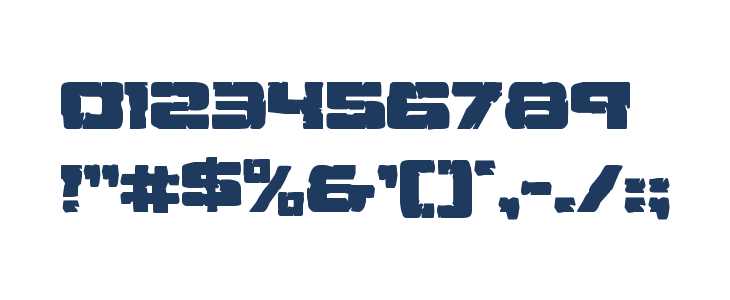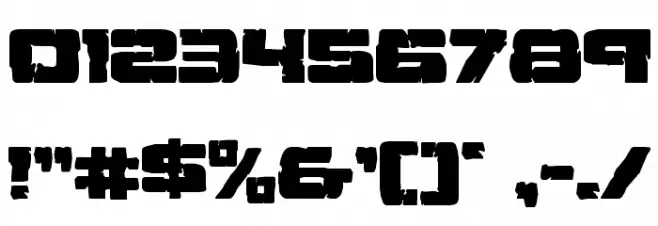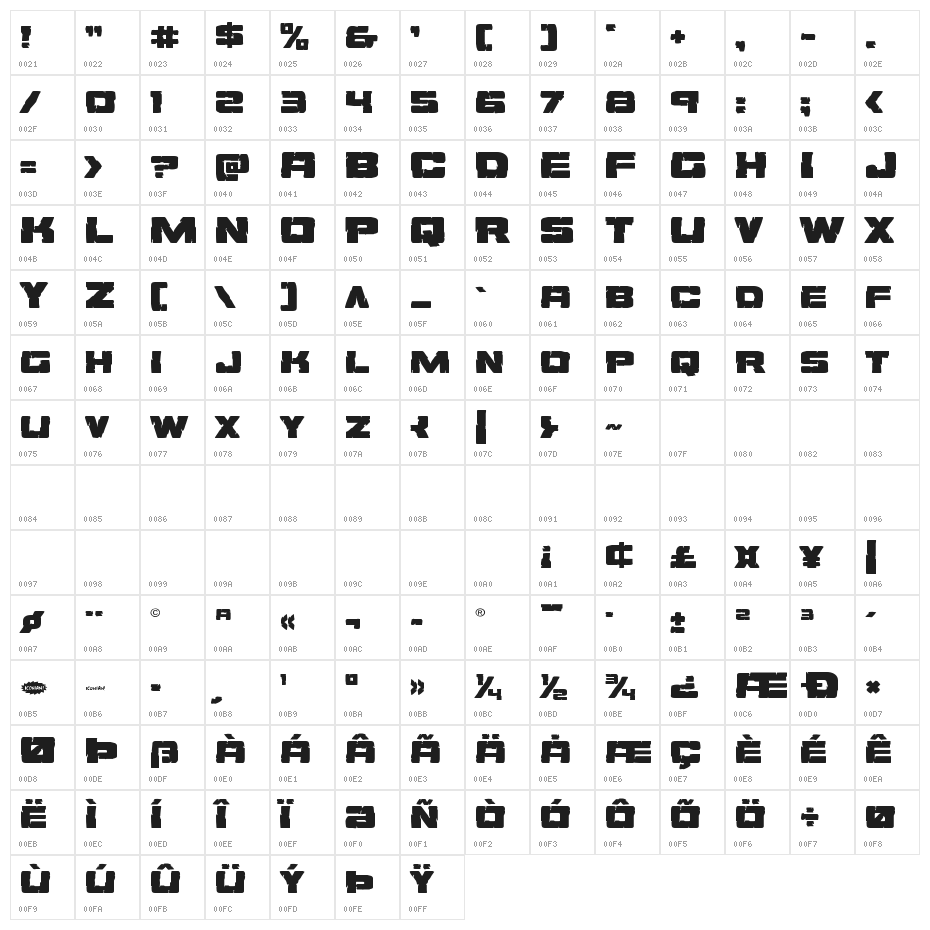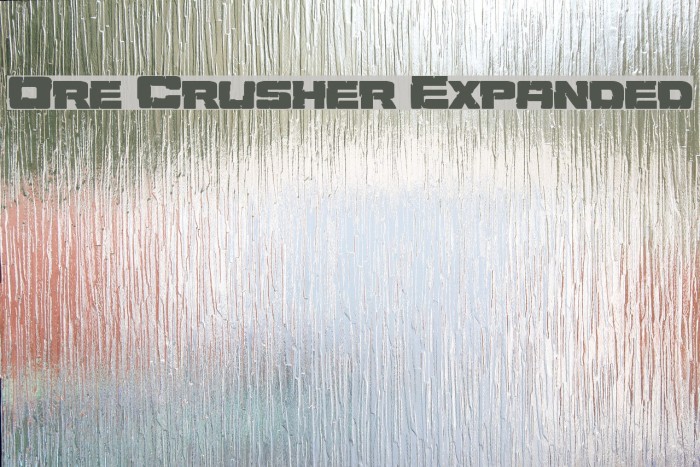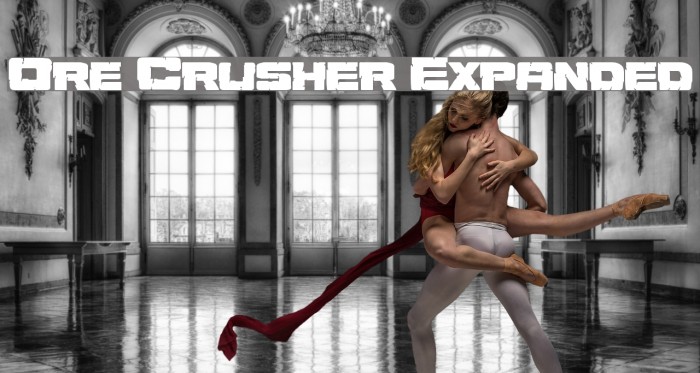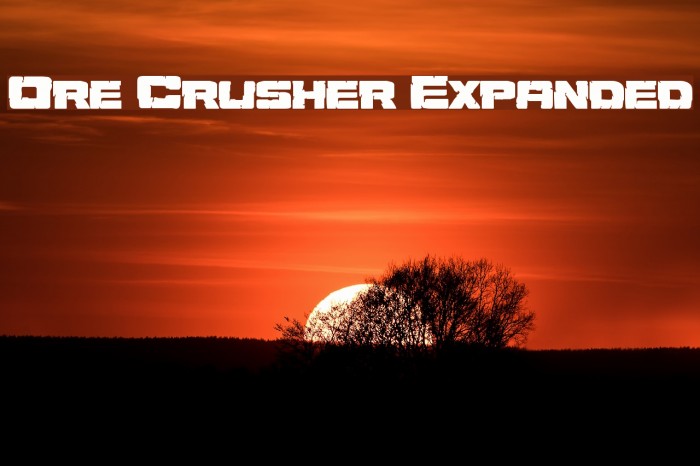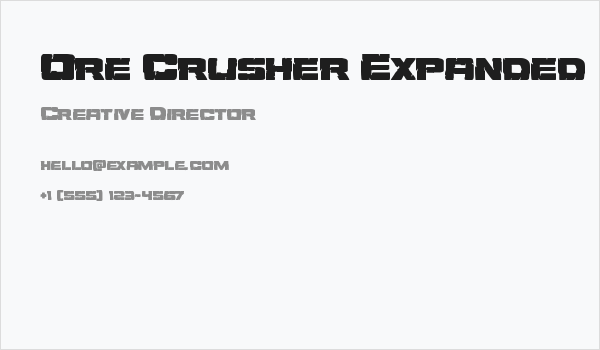
Ore Crusher Expanded Font
Ore Crusher Expanded Description
This font features a bold, industrial design with a rugged, distressed appearance. The characters are blocky and robust, with a heavy weight that suggests strength and durability. The edges are rough and irregular, giving it a raw, mechanical feel. This style is reminiscent of machinery and heavy industry, making it ideal for projects that require a strong, impactful visual presence. The uppercase letters are particularly striking, with their wide, expansive forms. The numbers and special characters maintain the same rugged aesthetic, ensuring consistency across all text elements.
| Overall Style | Industrial, Rugged |
| Proposed Projects | Ideal for branding in construction, automotive, or heavy industry sectors, as well as for posters, logos, and headlines that need a strong, impactful presence. |